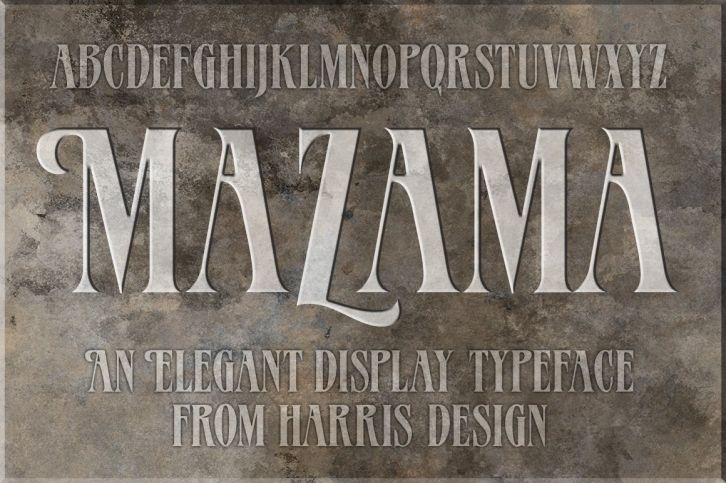
Mazama Regular is a beautiful all-uppercase display font with several alternate swash characters. Mazama Regular is the perfect font to use for headlines, magazine titles, logos, or anywhere you might need something elegant that stands out from the crowd.